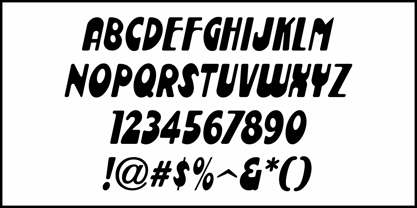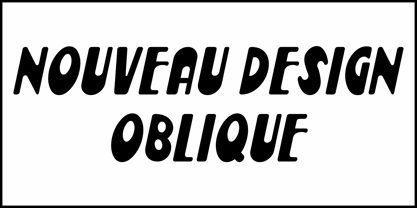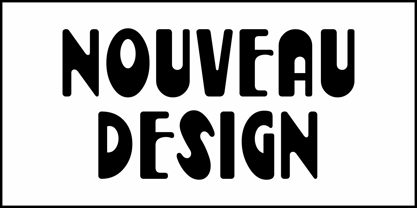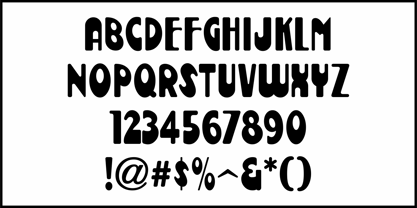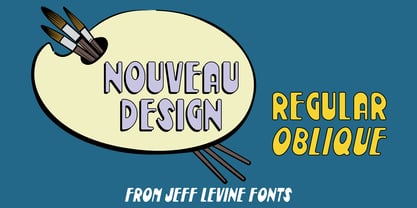
Nouveau Design JNL
by Jeff Levine
The April, 1925 issue of Motion Picture Magazine had its cover title hand lettered in a rounded and condensed Art Nouveau sans serif style.
This is now available as Nouveau Design JNL in both regular and oblique versions.